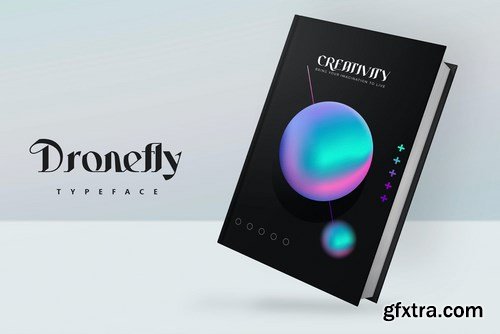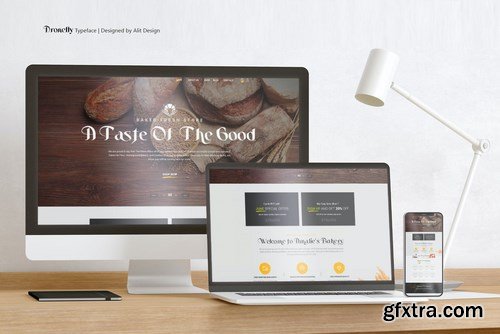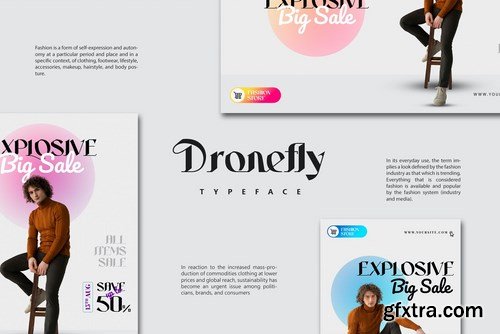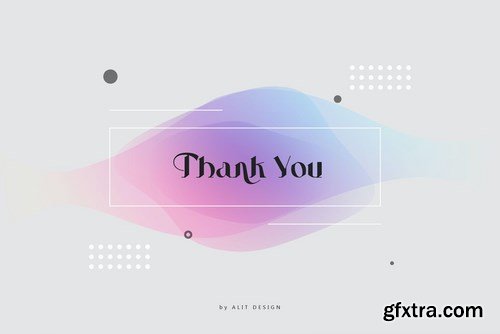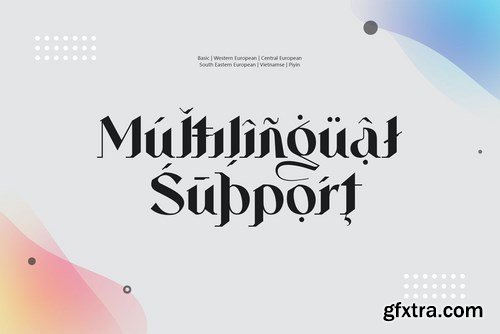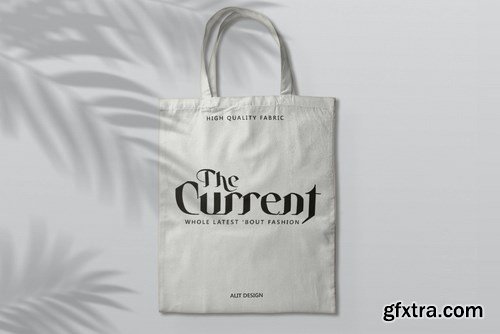
Dronefly Typeface
Modern Serif font with alternate and unique style, a display font in a elegant and bold style that makes your designs unique and distinctive.
Features:
A-Z Character Set
Numerals & Punctuations (OpenType Standard)
Stylistic Alternates
Multilingual
Ligatures